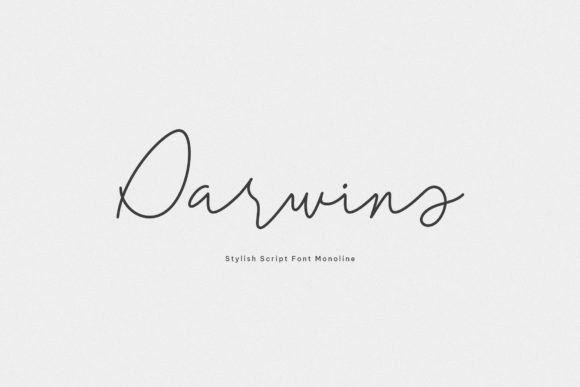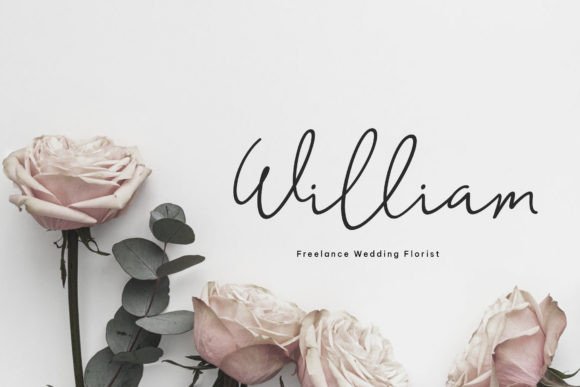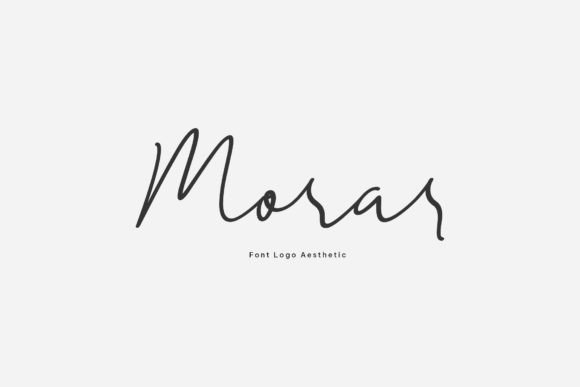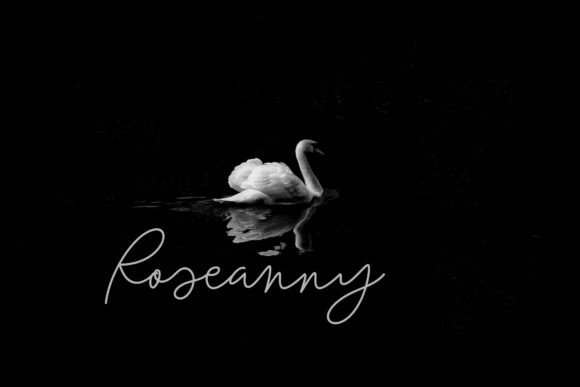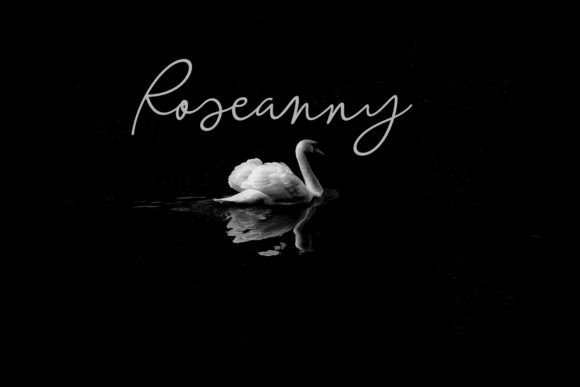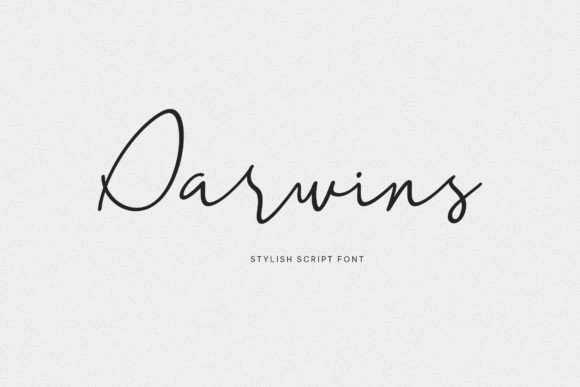
Discover the Elegance of Darwins Font: A Delicate Handwritten Typeface
Are you a designer or crafter looking for a font that exudes elegance and sophistication? Look no further than Darwins Font, a beautiful handwritten typeface that is sure to elevate your designs. In this article, we’ll take a closer look at the features and benefits of Darwins Font, and explore how it can be used to create stunning visual projects.
What is Darwins Font?
Darwins Font is a delicate, elegant, and flowing handwritten font that is perfect for a wide range of design applications. Its beautiful and well-balanced characters make it an ideal choice for projects that require a touch of sophistication and refinement. Whether you’re creating a logo, branding materials, or digital content, Darwins Font is sure to impress.
Key Features of Darwins Font
- Delicate and Elegant Design: Darwins Font features a beautiful, flowing script that is both elegant and refined.
- Well-Balanced Characters: Each character in Darwins Font is carefully crafted to ensure that they are well-balanced and visually appealing.
- PUA Encoded: Darwins Font is PUA (Private Use Area) encoded, which means that you can access all of the glyphs and swashes with ease.
- Wide Range of Design Applications: Darwins Font is versatile and can be used for a wide range of design applications, from logos and branding materials to digital content and more.
The Benefits of Using Darwins Font
So why should you choose Darwins Font for your design projects? Here are just a few benefits of using this beautiful handwritten font:
- Elegance and Sophistication: Darwins Font adds a touch of elegance and sophistication to any design project.
- Versatility: Darwins Font is versatile and can be used for a wide range of design applications.
- Easy to Use: Darwins Font is PUA encoded, making it easy to access all of the glyphs and swashes.
- High-Quality Design: Darwins Font is designed to high standards, ensuring that your design projects look professional and polished.
How to Use Darwins Font in Your Design Projects
Using Darwins Font in your design projects is easy. Here are a few tips to get you started:
- Pair it with Other Fonts: Darwins Font pairs well with other fonts, so don’t be afraid to experiment with different combinations.
- Use it for Headings and Titles: Darwins Font is perfect for headings and titles, where its elegant and refined design can really shine.
- Add Swashes and Glyphs: Darwins Font comes with a range of swashes and glyphs that you can use to add extra flair to your designs.
- Experiment with Different Colors: Darwins Font looks great in a range of colors, so don’t be afraid to experiment and find the perfect shade for your design.
| Font Name | Darwins Font |
| Author | FontCastle |
In conclusion, Darwins Font is a beautiful handwritten font that is perfect for designers and crafters looking to add a touch of elegance and sophistication to their design projects. With its delicate and refined design, well-balanced characters, and PUA encoding, Darwins Font is a versatile and easy-to-use font that is sure to impress. Whether you’re creating logos, branding materials, or digital content, Darwins Font is a great choice.
Here are a few final tips for designers and crafters looking to get the most out of Darwins Font:
- Experiment with Different Design Applications: Darwins Font is versatile and can be used for a wide range of design applications, so don’t be afraid to experiment and try new things.
- Pay Attention to Font Pairing: Darwins Font pairs well with other fonts, so make sure to pay attention to font pairing when using it in your designs.
- Use High-Quality Images: When using Darwins Font in your designs, make sure to use high-quality images to ensure that your project looks professional and polished.